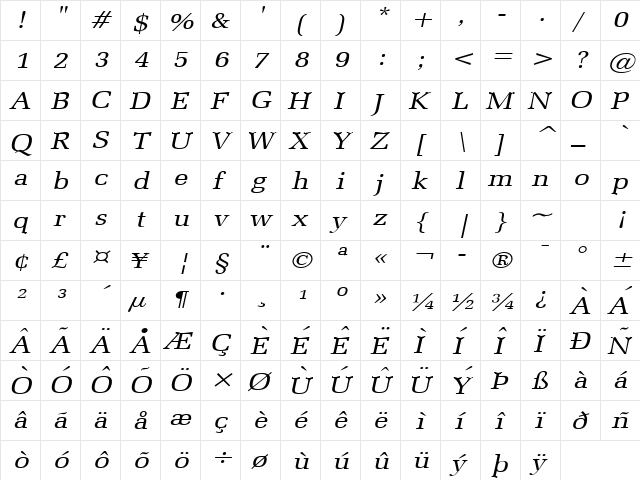
Bid Roman Wide Italic
Design Context for Bid Roman Wide Typeface
Bid Roman Wide takes a measured approach to typography — its balanced proportions and neutral character make it a reliable workhorse for both digital and print work. The slanted form adds forward momentum and visual energy.
Pro Tip: Try Bid Roman Wide for annotation and caption copy alongside an upright companion — the contrast in angle creates a dynamic but ordered typographic system.